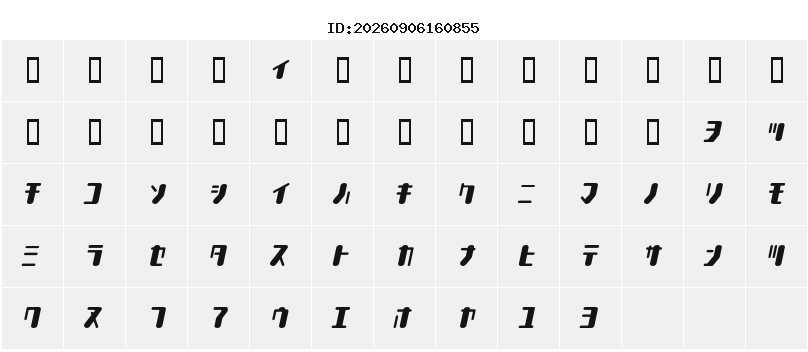
TYPEOUT2097 KAT Preview
• Font Name: TYPEOUT2097 KAT
• Font ID: Macromedia Fontographer 4.1.3 TYPEOUT2097 KAT Italic
• Full Font Name: TYPEOUT2097 KAT Italic
• Version: Macromedia Fontographer 4.1.3 98.3.16
• PostScript Name: TYPEOUT2097KATItalic
• Character Count: 66
About TYPEOUT2097 KAT.ttf
TYPEOUT2097 KAT.ttf is a modern, elegant sans-serif font designed for ultimate readability and visual harmony. Perfect for branding, headlines, web design, and print materials.